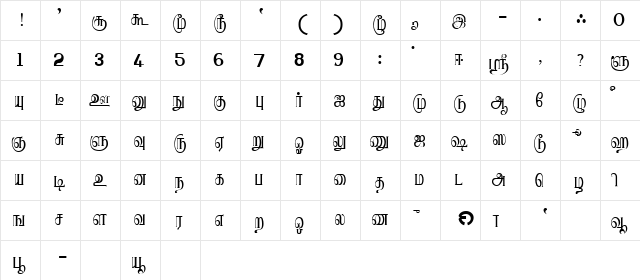
Ranjani Regular Font Preview
Ranjani Regular
Design Context for Ranjani Typeface
Ranjani offers clean, dependable letterforms without strong stylistic allegiance, making it a practical choice for designers who need flexibility.